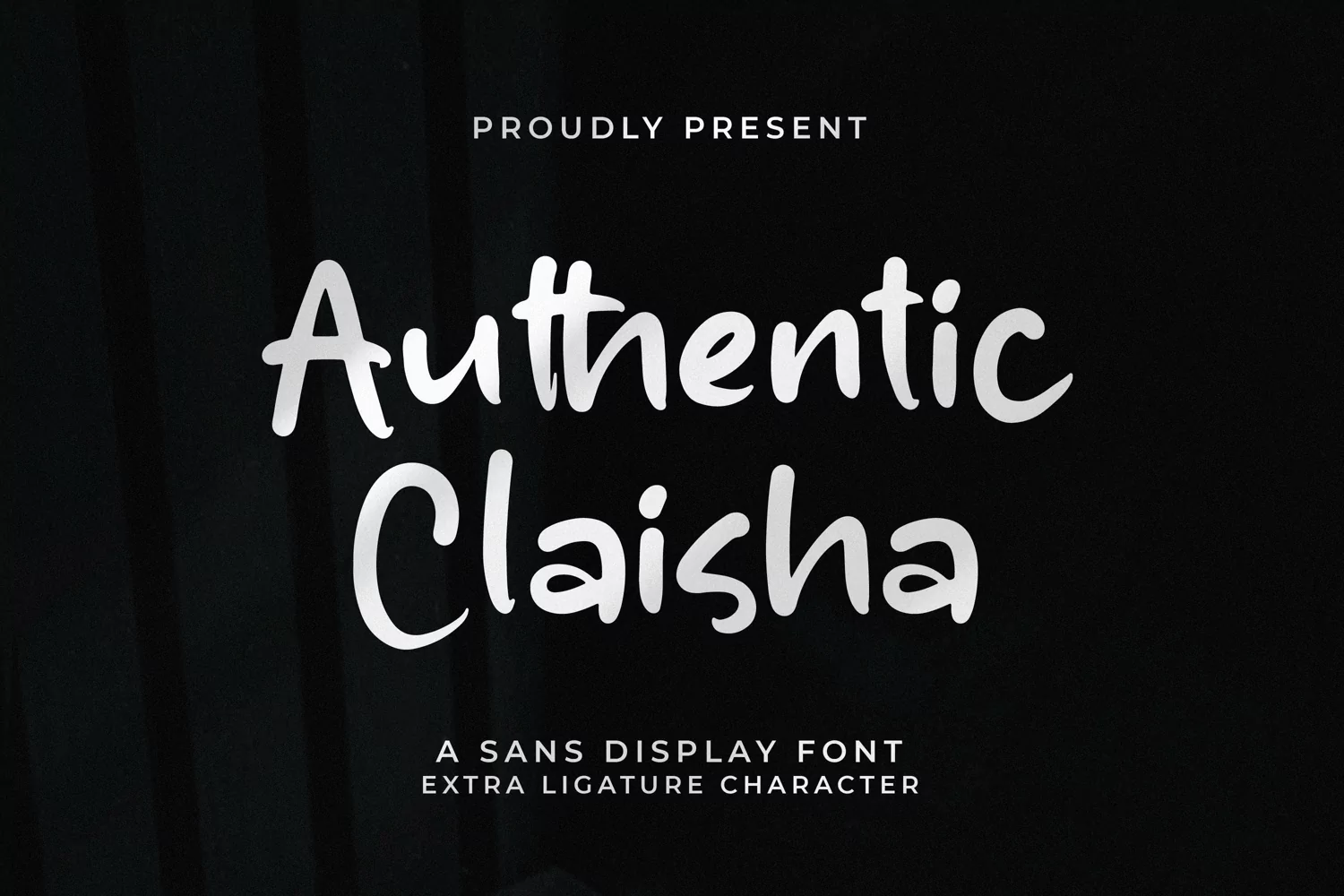
Authentic Claisha - Sans Display Font
Authentic Claisha - Sans Display Font, from Integritype Studio, is a premium Sans Display Font , suitable for any projects such as: logos, branding projects, homeware designs, product packaging, mugs, quotes, posters, shopping bags, t-shirts, books covers, name cards, invitation cards, greeting cards, labels, photography, watermarks, special events, and all your other luxury projects that need a premium signature taste.
Ligatures, Alternate & Swashes